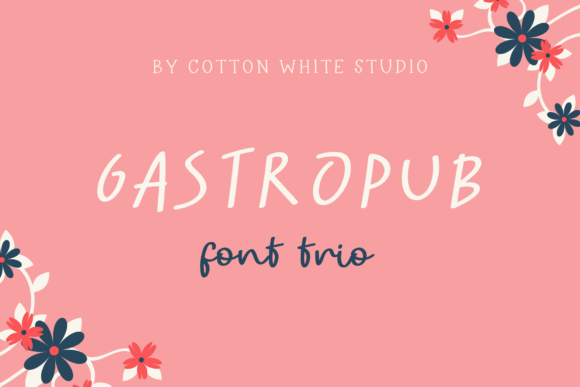
Dive into the realm of typography with Gastropub Trio, a mesmerizing script font family that exudes charm and personality. This captivating trio, crafted by the skilled hands of Cotton White Studio, was designed to infuse your projects with a sense of warmth and playfulness. Whether you're a designer, an artist, or a creative entrepreneur, Gastropub Trio is the perfect companion for unleashing your imagination.
Imagine crafting elegant greeting cards that transport recipients to a cozy coffee shop, surrounded by the aroma of freshly brewed espresso and the sound of soft chatter. Or envision creating enchanting illustrations that bring beloved children's books to life, capturing the wonder and innocence of young minds. The possibilities are boundless with Gastropub Trio as your creative ally.
This versatile font family is not just visually stunning; it's also incredibly versatile. With its carefully crafted characters and beautiful ligatures, Gastropub Trio effortlessly adapts to various applications. Whether you're designing eye-catching branding for a local boutique or creating memorable book covers that demand attention, this font trio rises to the occasion, delivering exceptional results every time.
As you delve deeper into the world of Gastropub Trio, you'll discover a treasure trove of typographic possibilities. Its playful nature lends itself perfectly to quirky quotes that spark curiosity and inspire creativity. Imagine transforming ordinary packaging into extraordinary works of art, capturing the attention of customers with a touch of whimsy and delight.
So, dear explorers of the digital realm, embrace the captivating allure of Gastropub Trio. Let your imagination soar as you explore the endless creative possibilities that await. From heartwarming greeting cards and captivating illustrations to striking branding and memorable book covers, this font family is your key to unlocking a world of typographic wonders. Start your creative journey today and let Gastropub Trio guide you towards typographic greatness.